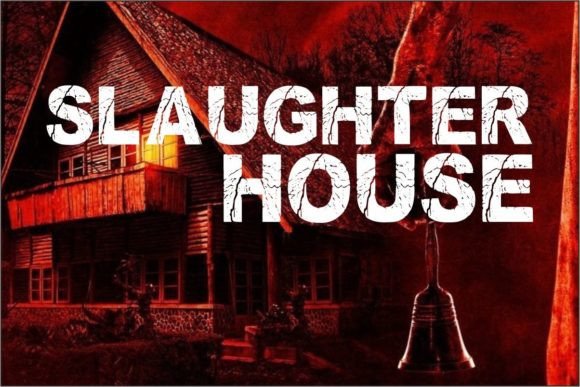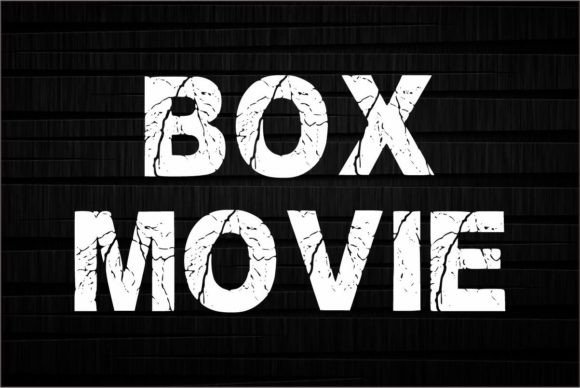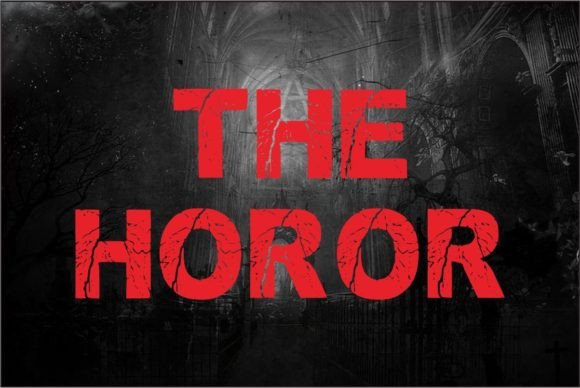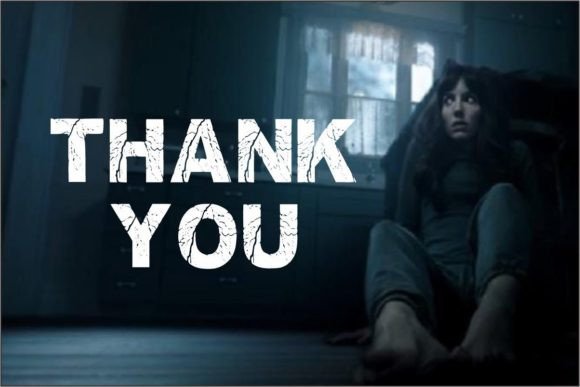
Introduction to Phetir Font Font
Fonts play a crucial role in design, and the Phetir Font font is a typeface that brings both character and versatility to any project. Whether you’re working on a branding project, a website, or a print design, the Phetir Font font offers a unique style that can elevate your work.
Phetir is a spooky style display font that symbolizes power and speed.
You can use it for box movie themes, logos, T-shirts, backgrounds, and more Add this font to your favorite creative ideas and see how they come to life.
Key Features of Phetir Font Font
The Phetir Font font is more than just a typeface – it’s a design tool that helps you communicate your message with style and clarity. Its unique character set and versatile design make it suitable for a wide range of applications, from elegant invitations to bold headlines.
With its carefully crafted letterforms and balanced proportions, the Phetir Font font ensures readability and visual appeal across all mediums.
What makes Phetir Font font special?
The Phetir Font font stands out with its unique design, exceptional readability, and versatility across various design applications.